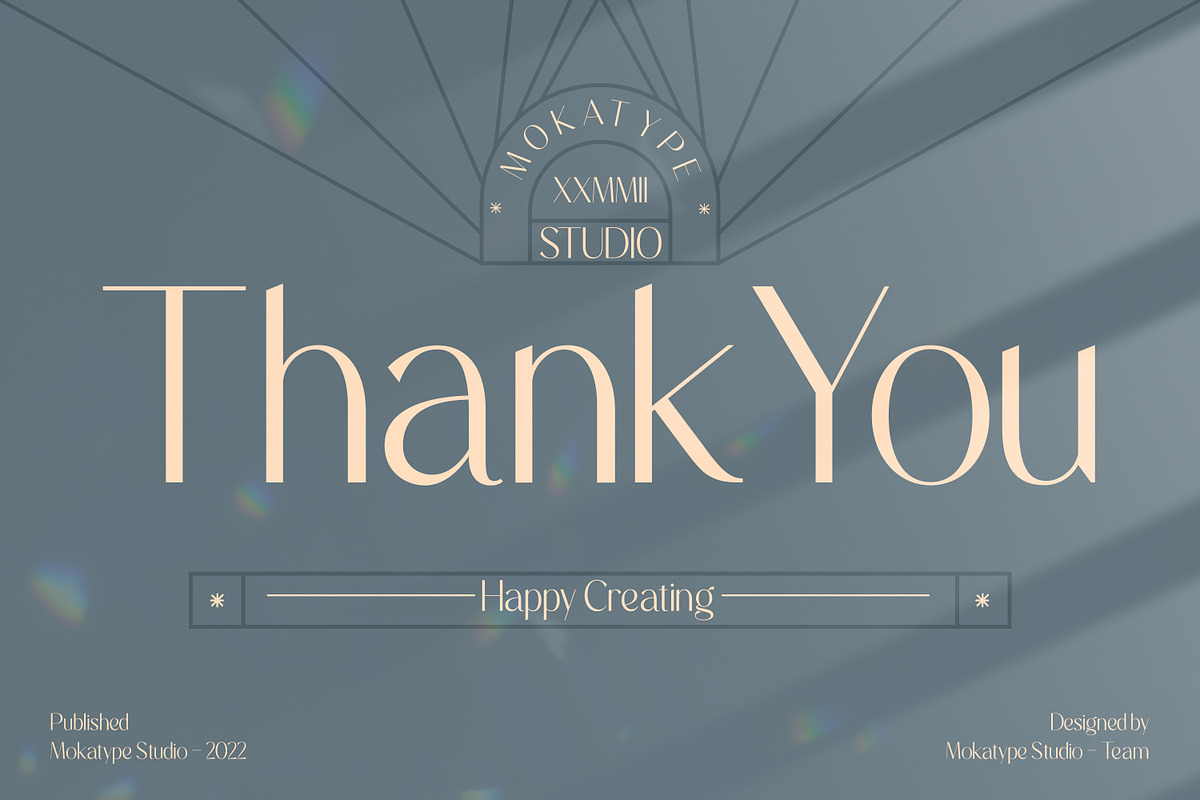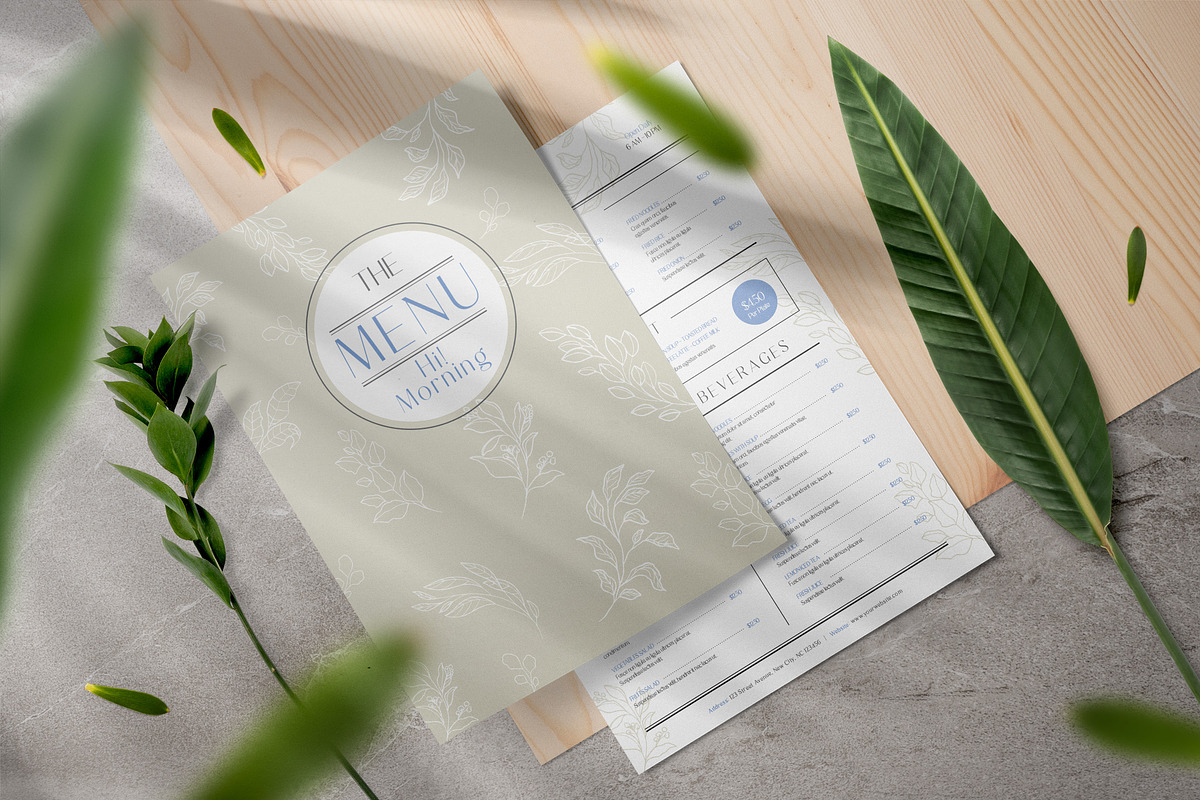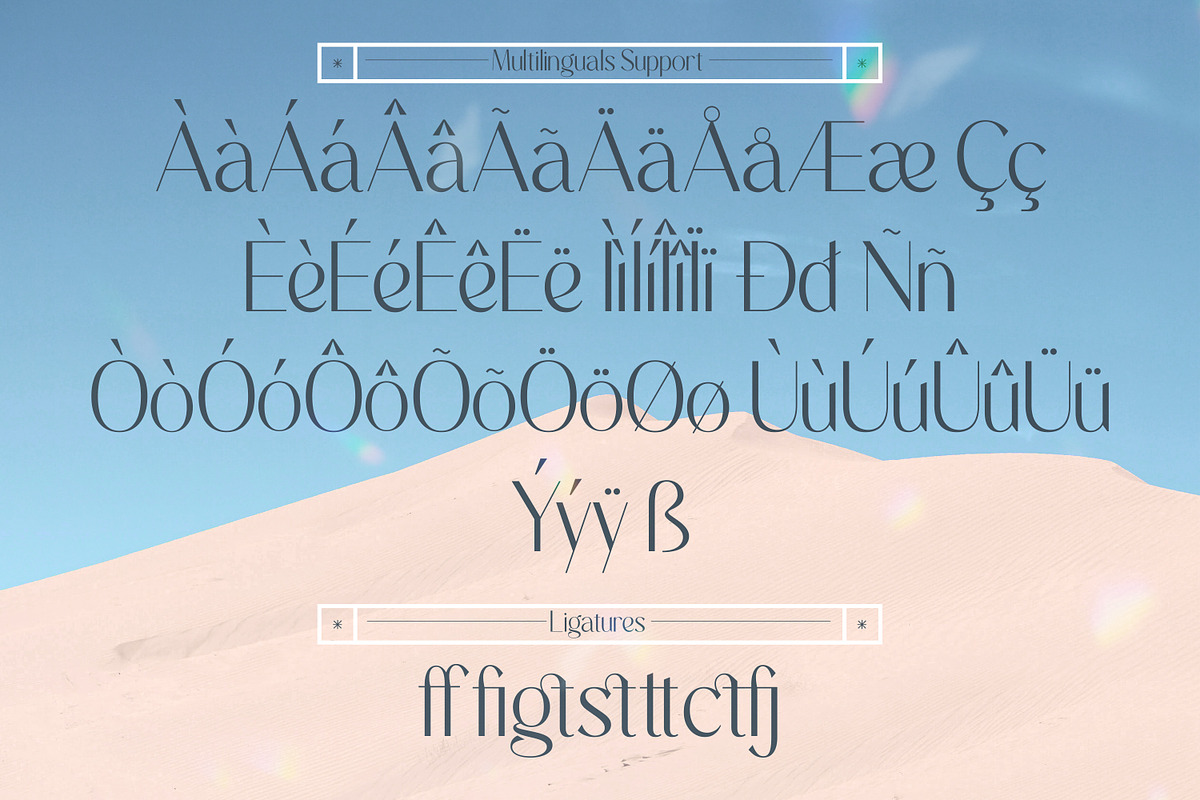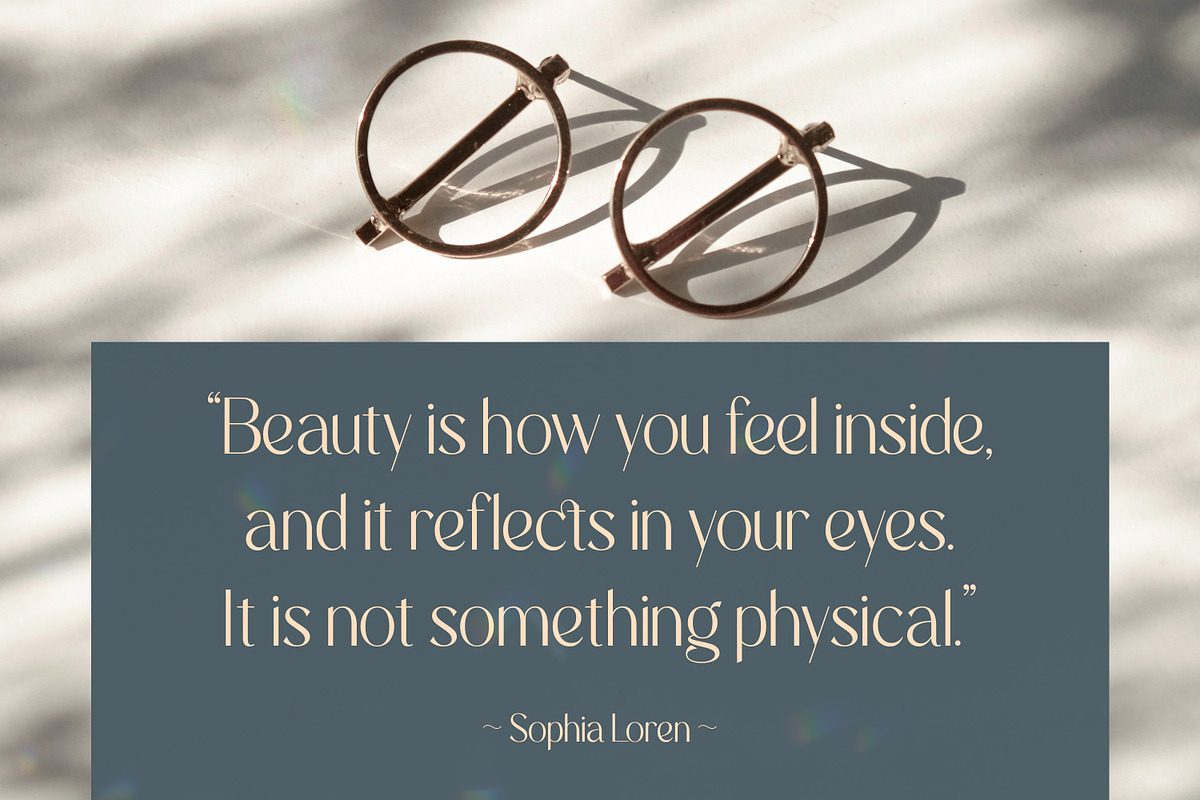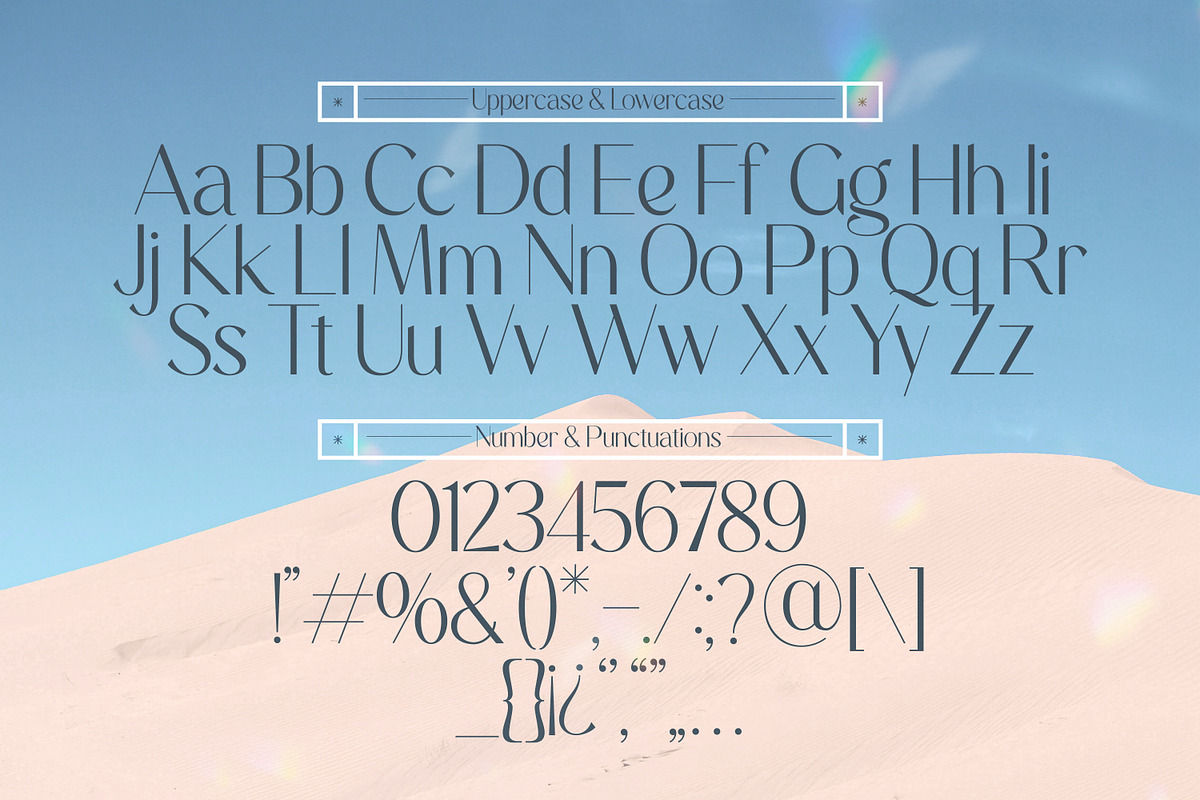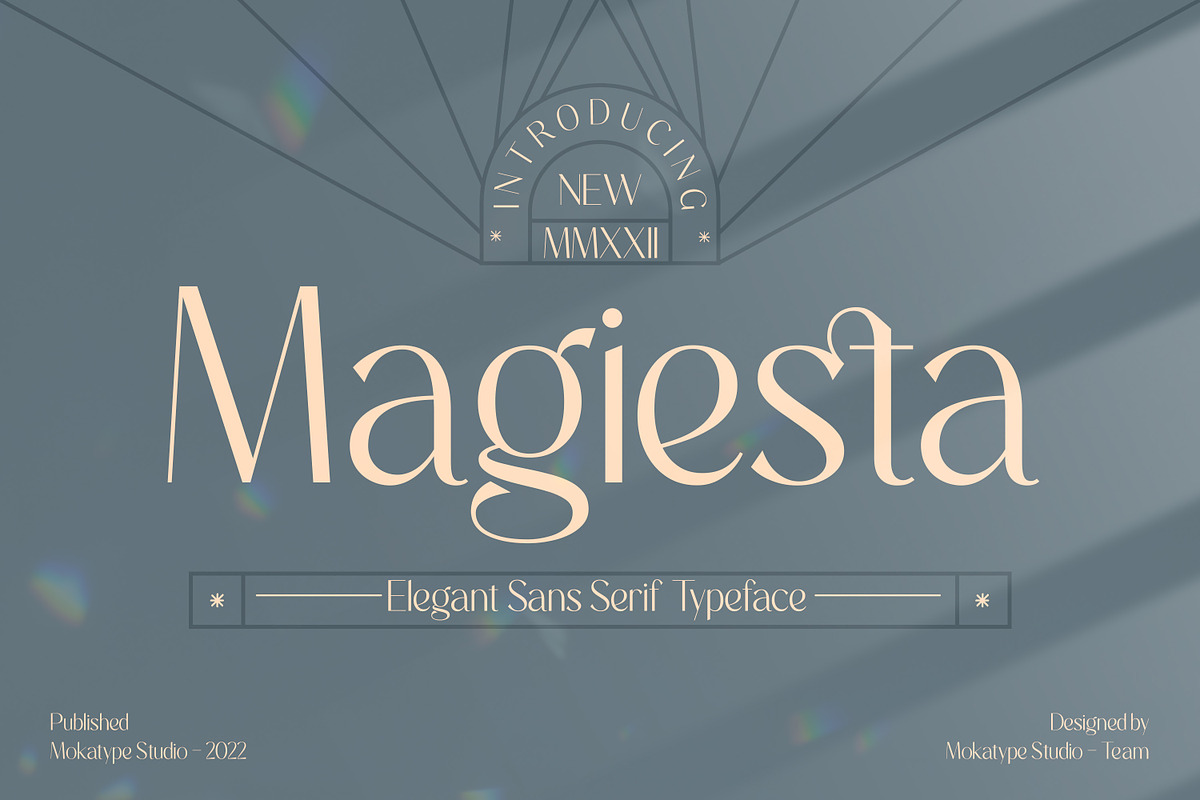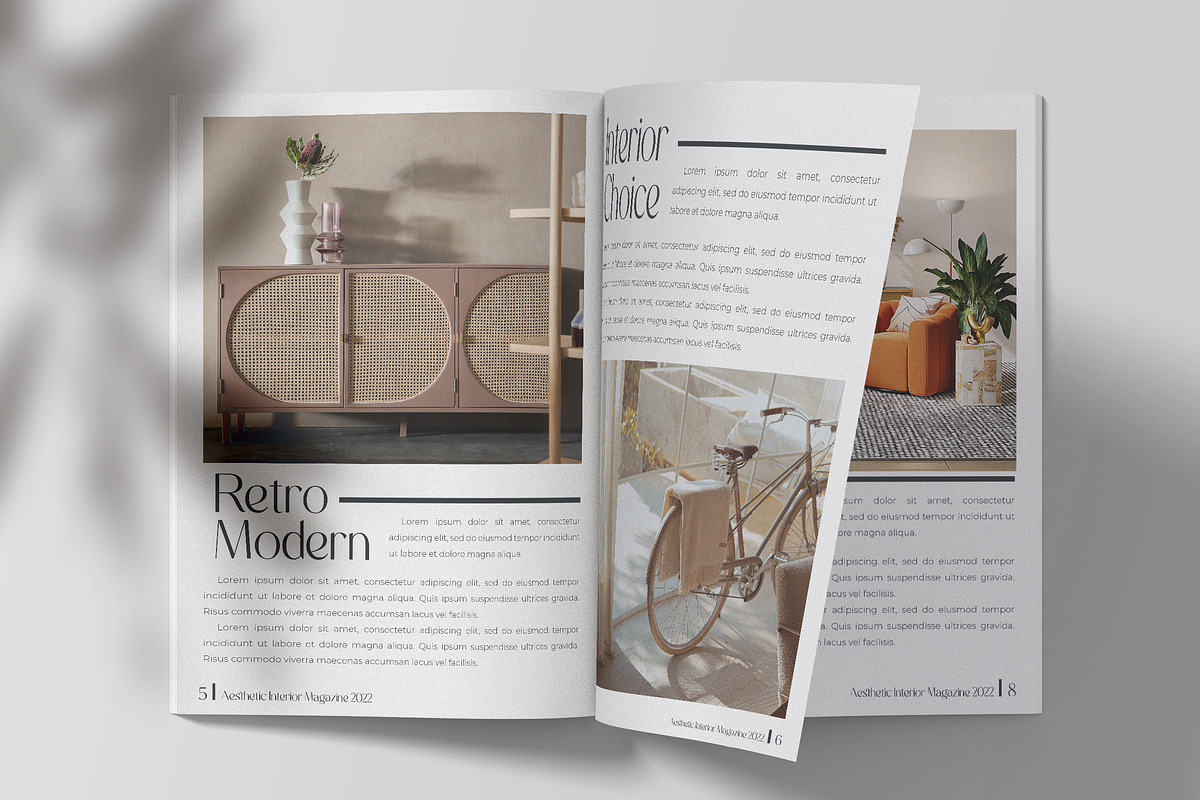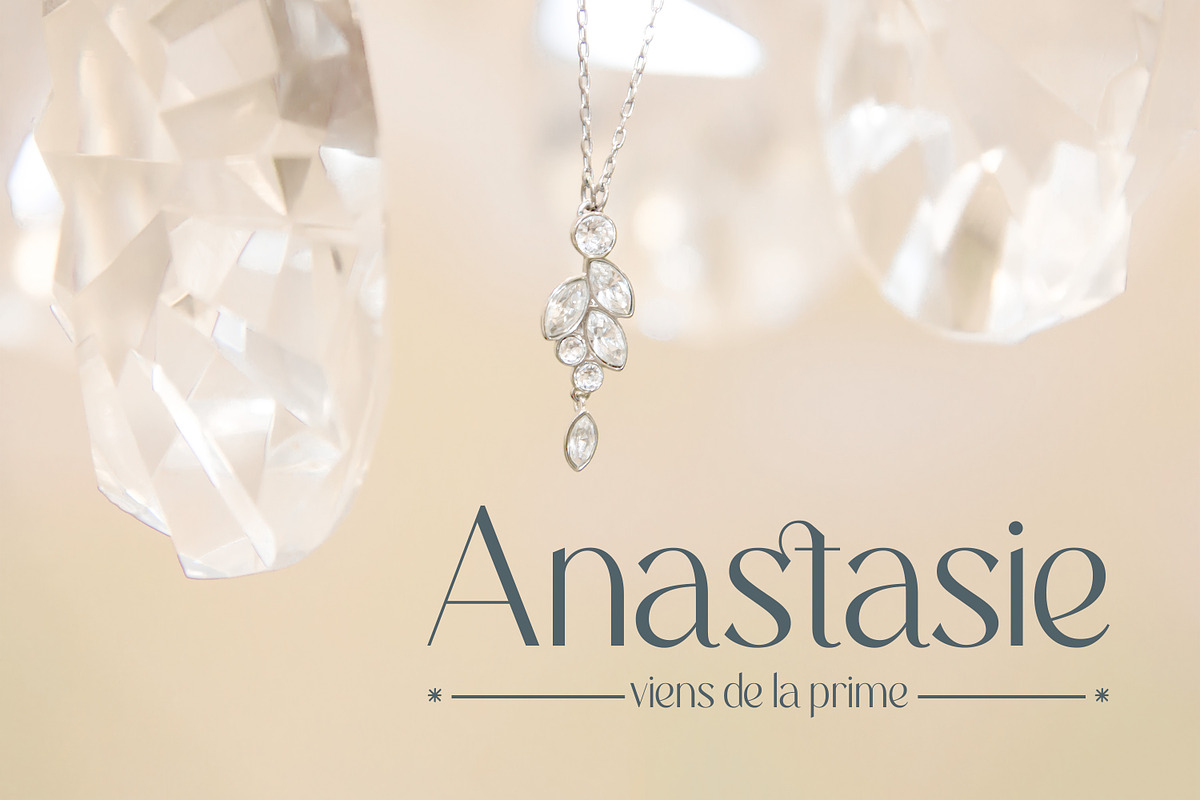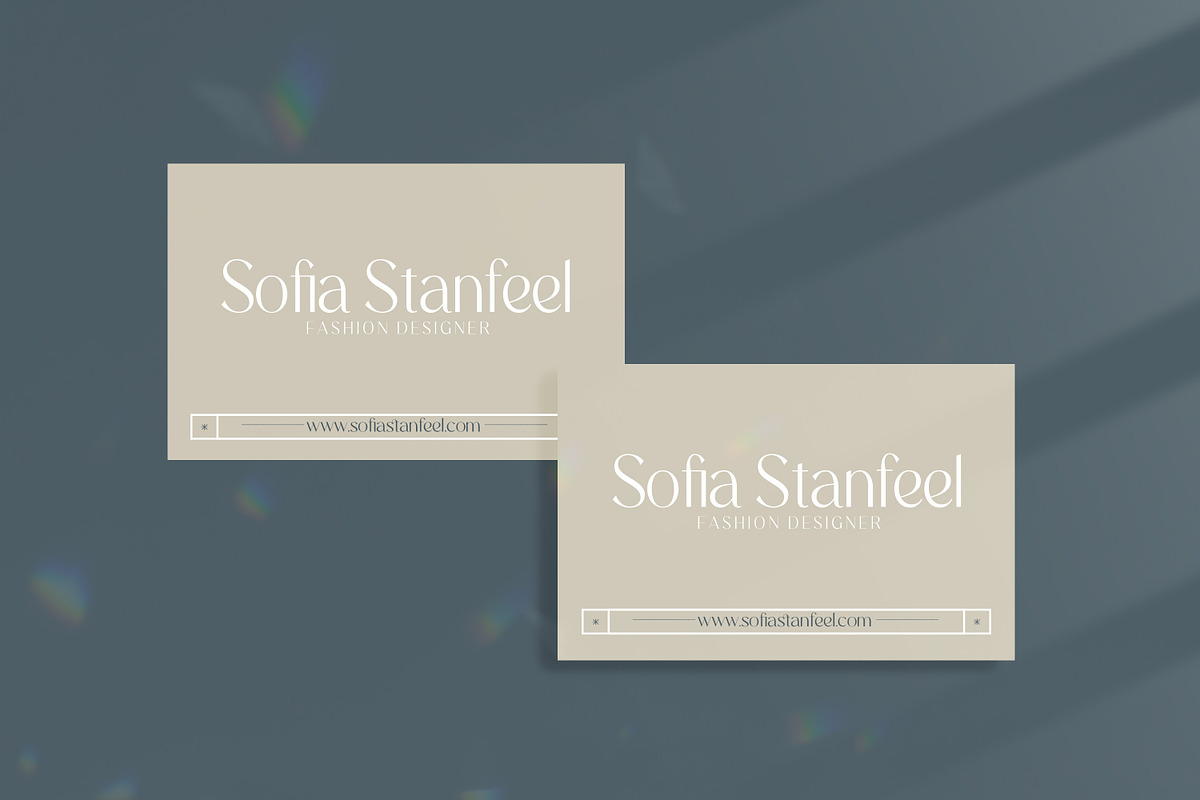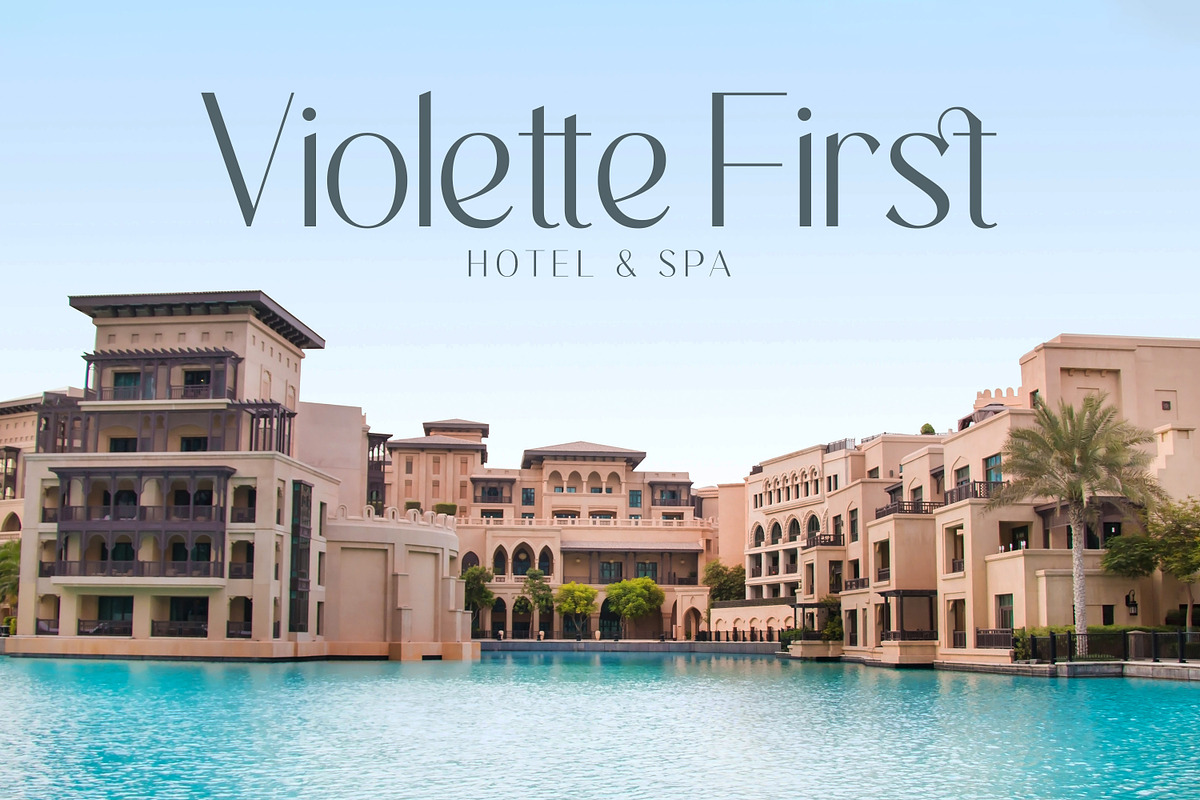
Magiesta - Elegant Sans
Magiesta - Elegant Display Sans Serif is a unique font that uses ligatures to smoothly link letters. Perfect for adding a unique twist to word-mark logos, monograms, or pull quotes. Magiesta has 7 ligatures making it super fantastic. Ligature can be turned off if required standard writing needs. What's Included :